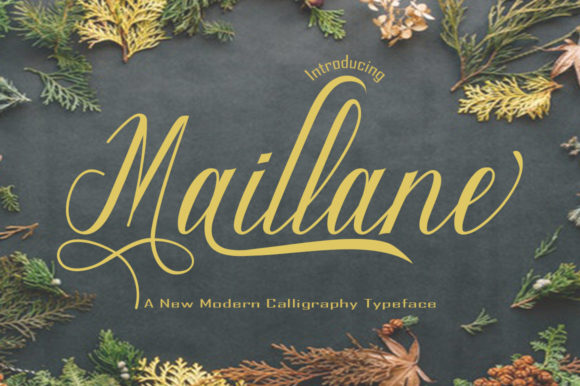
Unleash the Enchantment of Maillane Script: A Masterpiece for Storytellers
In the realm of typography, where letters dance and words take flight, there exists a font that captivates the senses and weaves tales of wonder. Maillane Script, a creation of the esteemed faisal_Alfaraby, is not just a font; it's an artistic masterpiece waiting to grace your next design project.
With its elegant curves and graceful strokes, Maillane Script possesses an inherent charm that brings life to your stories. Picture the allure of a handwritten letter penned with the utmost care, each word flowing seamlessly into the next. Maillane Script captures this essence, evoking a sense of nostalgia and timeless beauty.
Immerse yourself in the world of Maillane Script and discover a font that transcends ordinary boundaries. Its delicate hairlines and flourishing terminals add a touch of sophistication, while its carefully crafted ligatures create a harmonious rhythm that guides the reader's eye through your text.
Step into the spotlight with Maillane Script, the font designed to make your words shine. Whether you're crafting captivating blog posts, weaving enchanting invitations, or designing eye-catching social media graphics, this font will elevate your creations to new heights of elegance and charm.
Seize the opportunity to make a lasting impression with Maillane Script. Its versatility knows no bounds, allowing you to effortlessly transform mundane text into captivating works of art. Let your imagination soar as you explore the endless possibilities that await you with this extraordinary font.